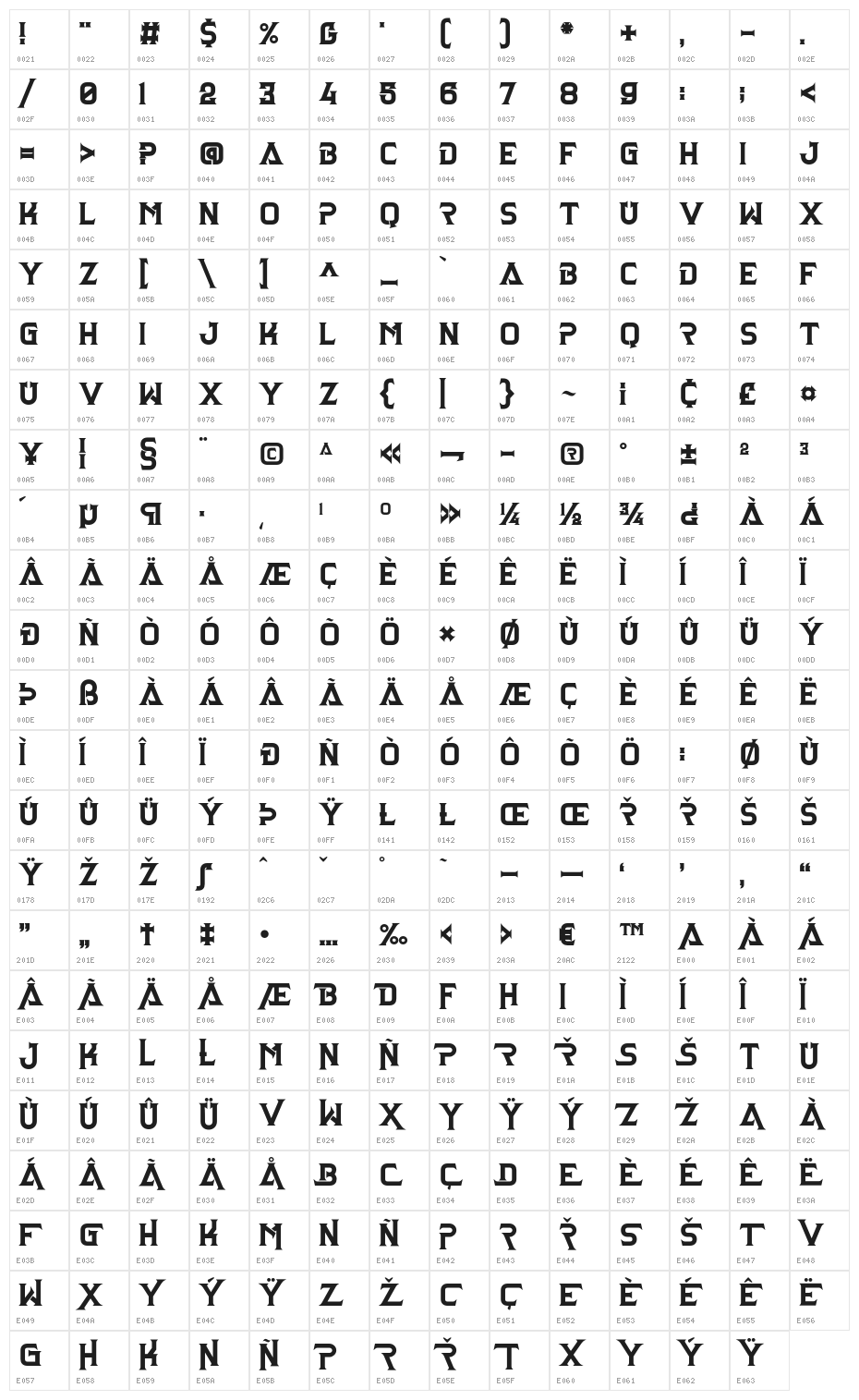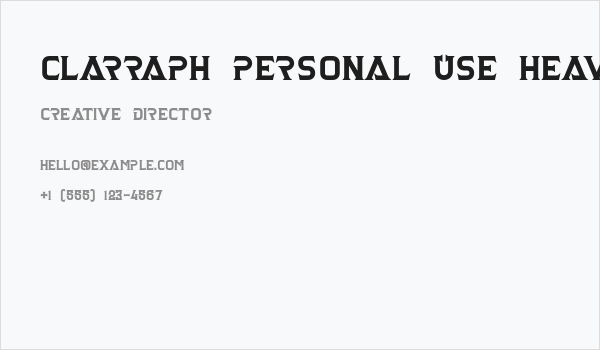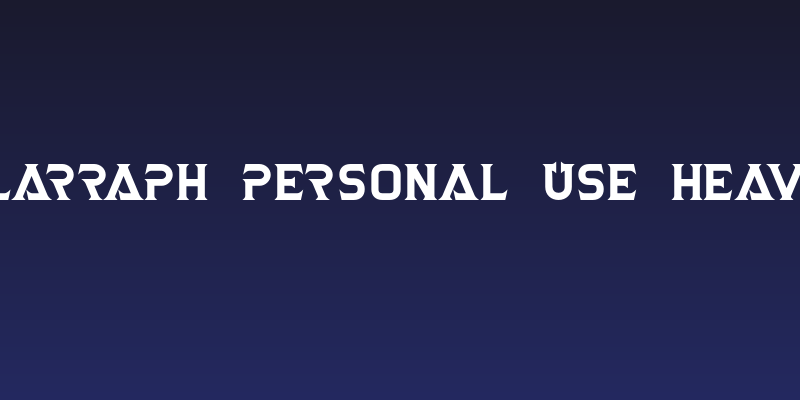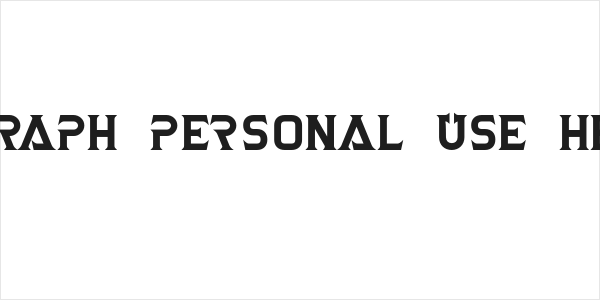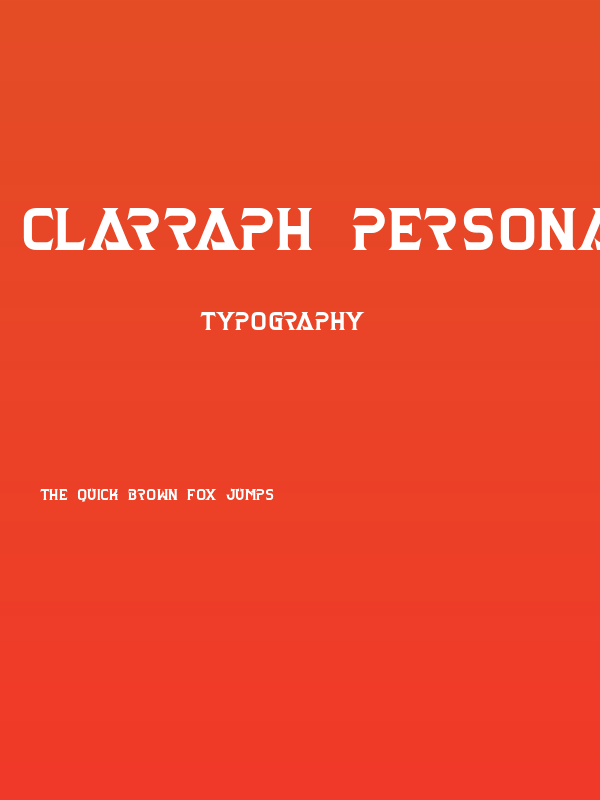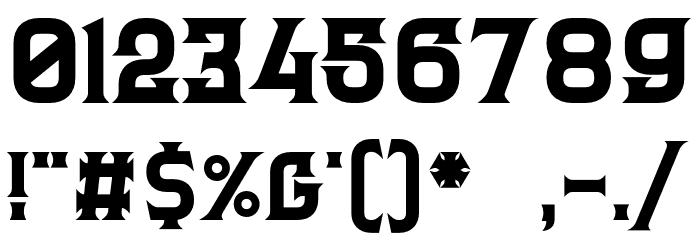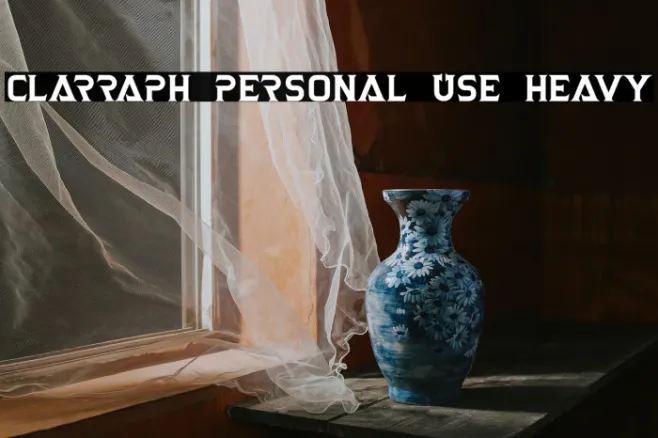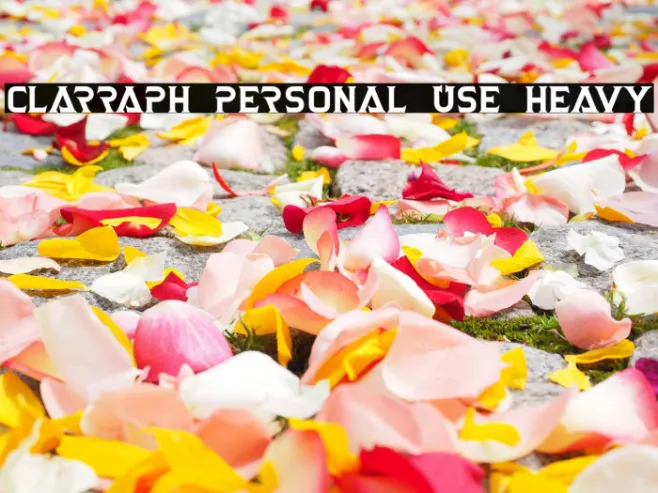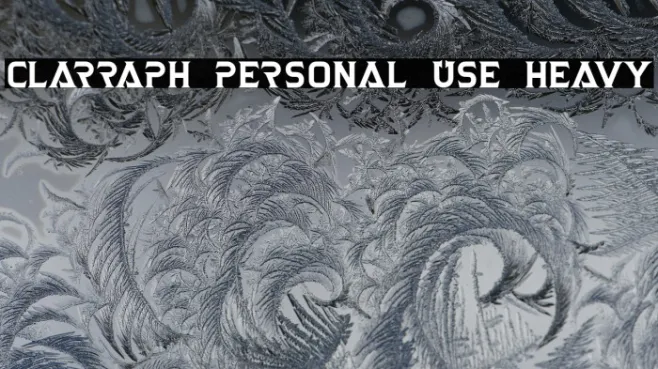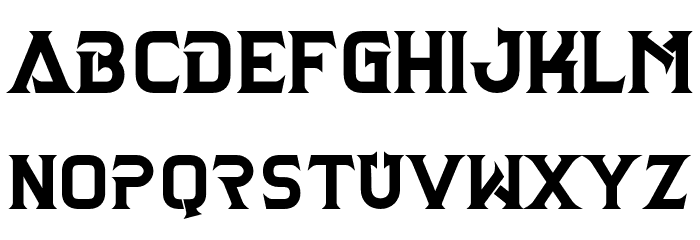
Clarraph Personal Use Heavy Font
Clarraph Personal Use Heavy Description
This font features a bold and striking design with sharp, angular edges and a heavy weight. The characters are crafted with a unique geometric style, giving them a modern and edgy appearance. The uppercase letters are particularly prominent, with a strong presence that commands attention. The numerals and special characters maintain the same boldness, ensuring consistency throughout the typeface. The font's design is reminiscent of futuristic or sci-fi themes, making it ideal for projects that require a dramatic and impactful look.
| Proposed Projects | Ideal for sci-fi themed posters, video game titles, branding for tech companies, and any project needing a bold, modern look. |